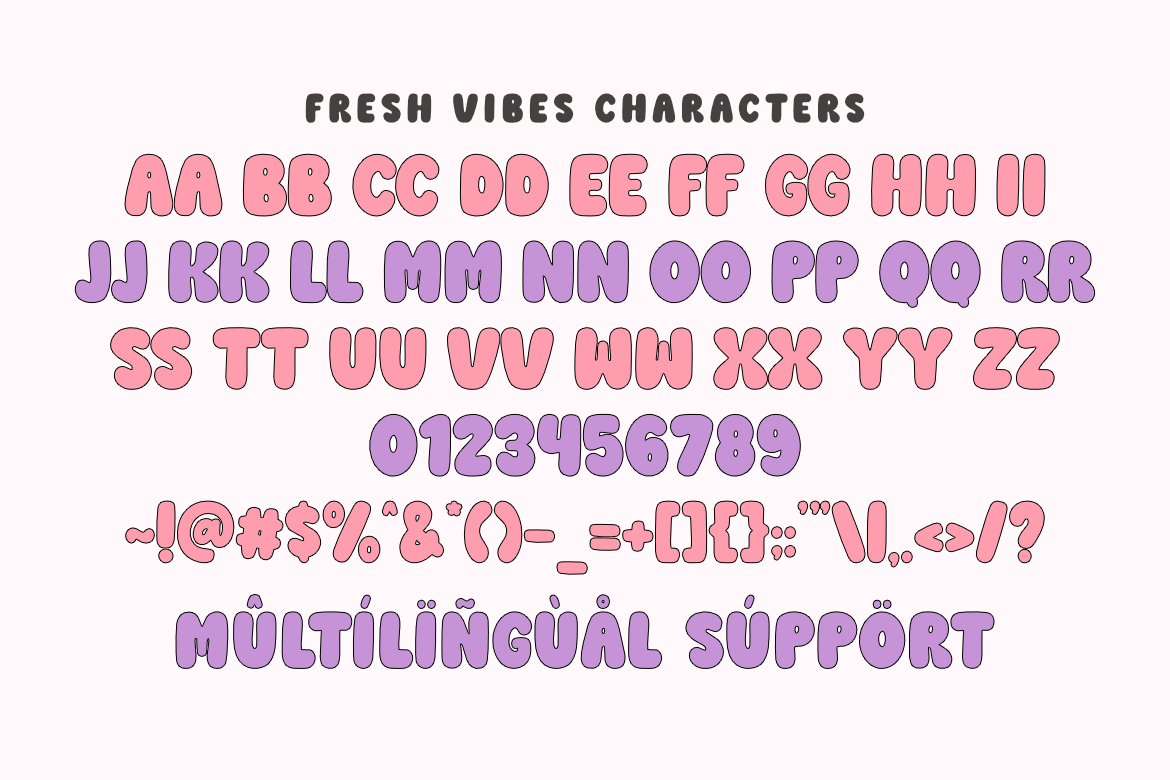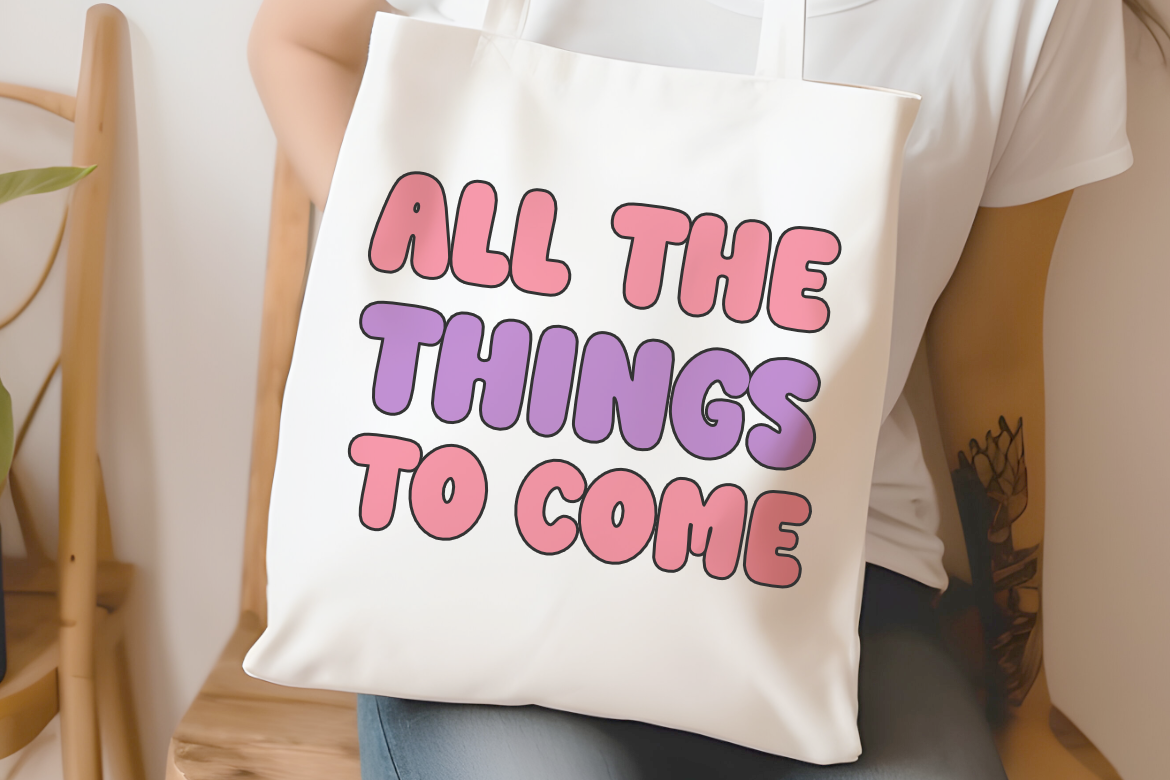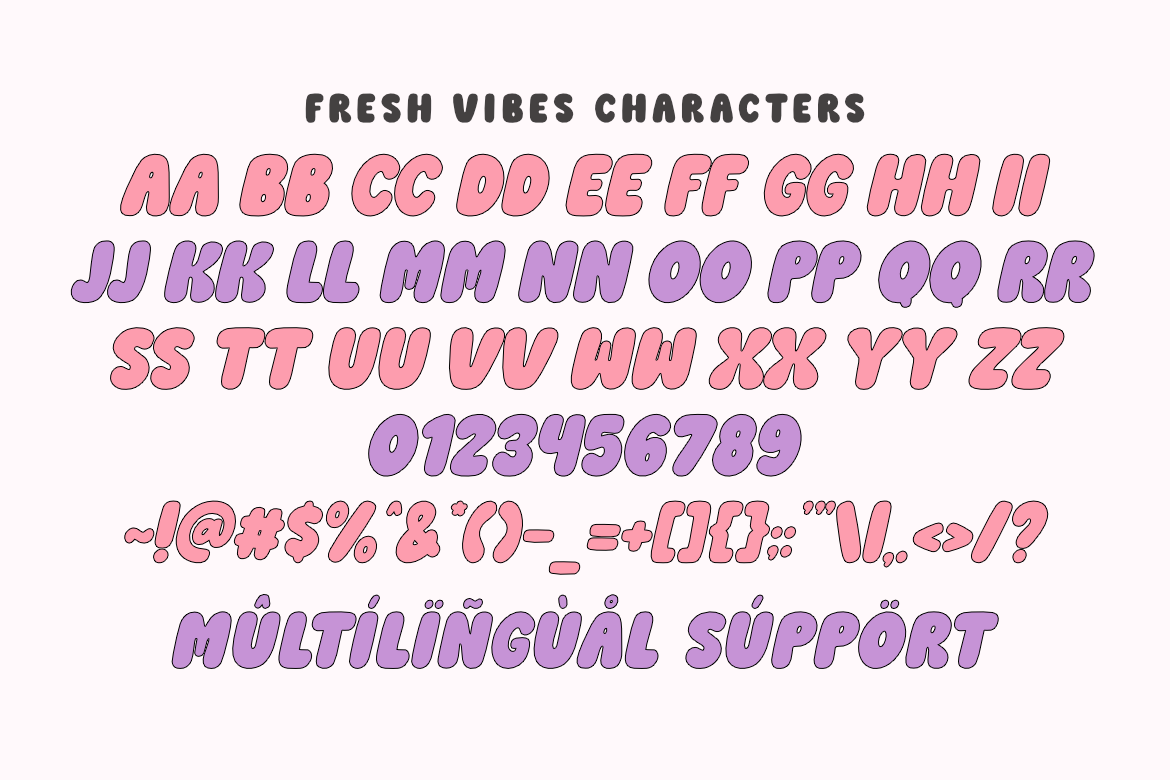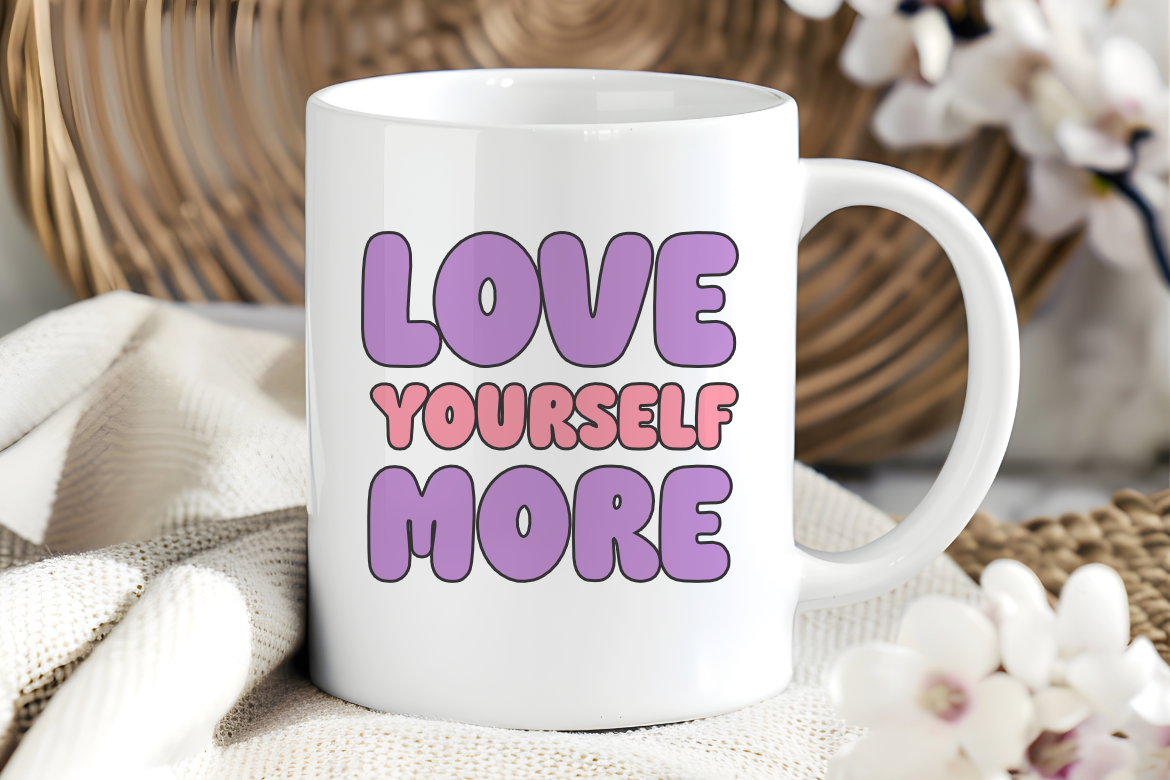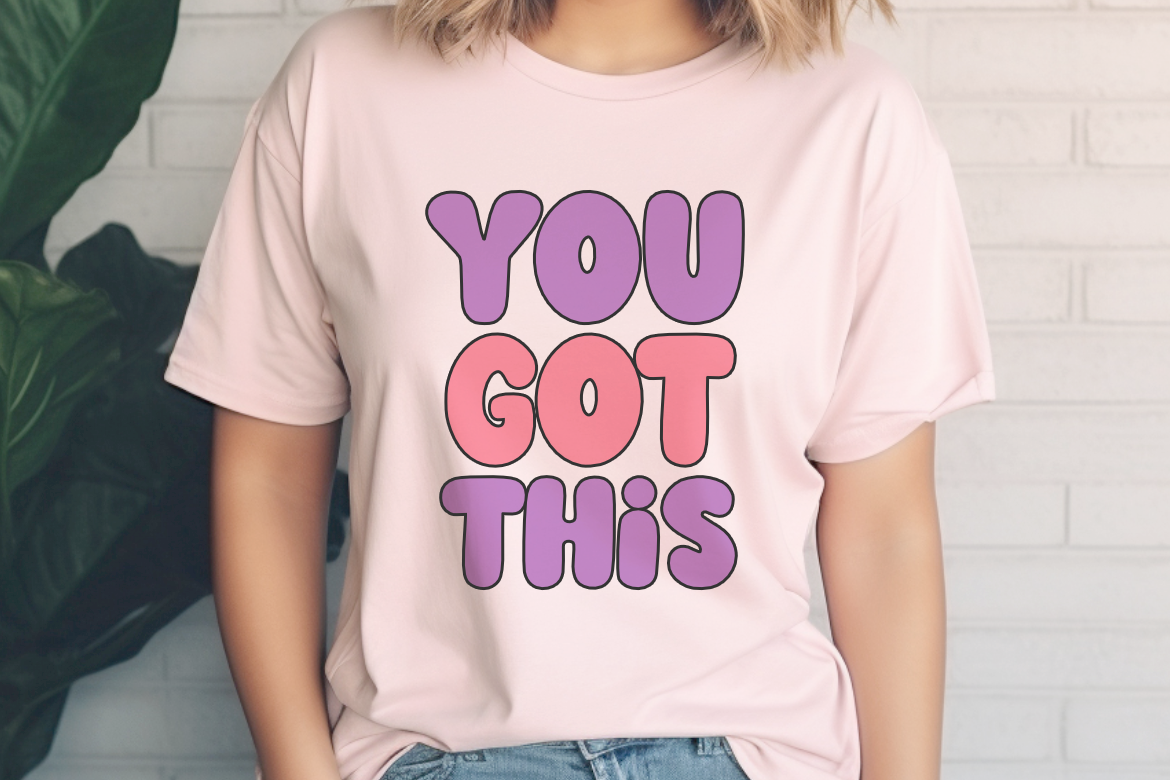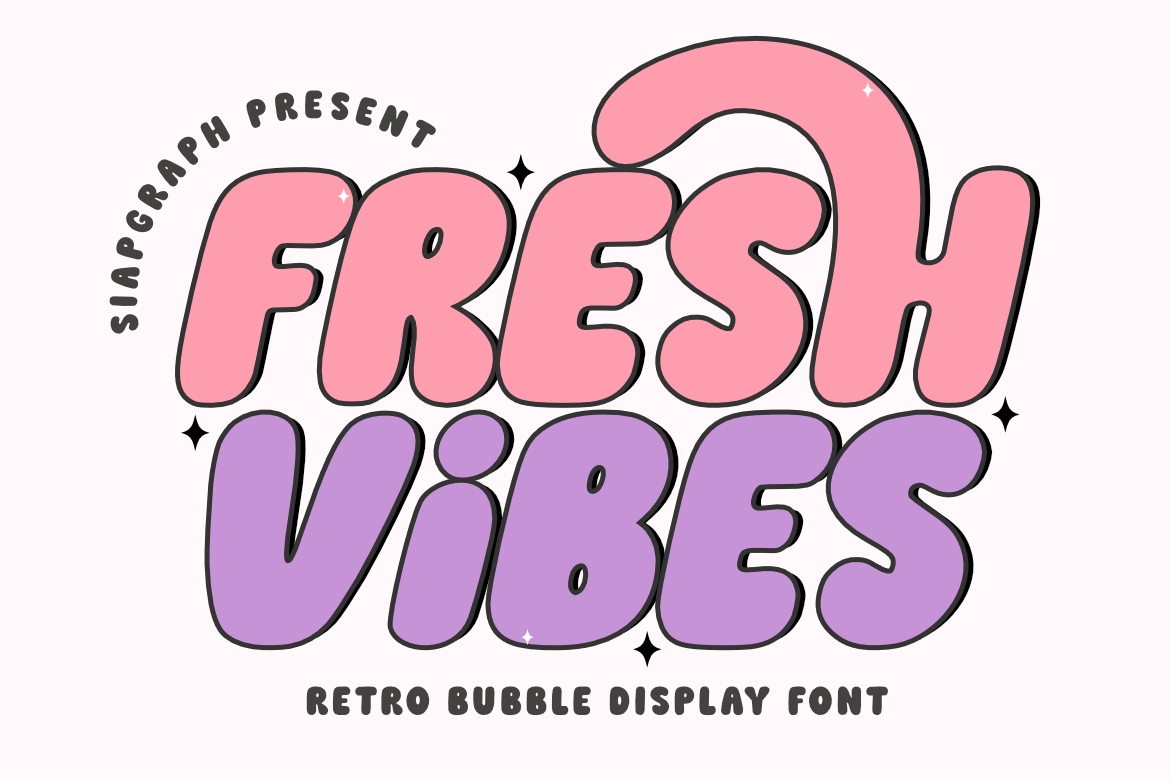
Fresh Vibes - Playful Bubble Font for Cricut and Sublimation
Bring your ideas to life with Fresh Vibes, a charming and playful bubble display font that exudes playfulness! Its soft curves and bold appearance are perfect for creating eye-catching headlines, posters, social media graphics, and branding. Add a dreamy touch to your designs with this delightful font that’s both fun and versatile.